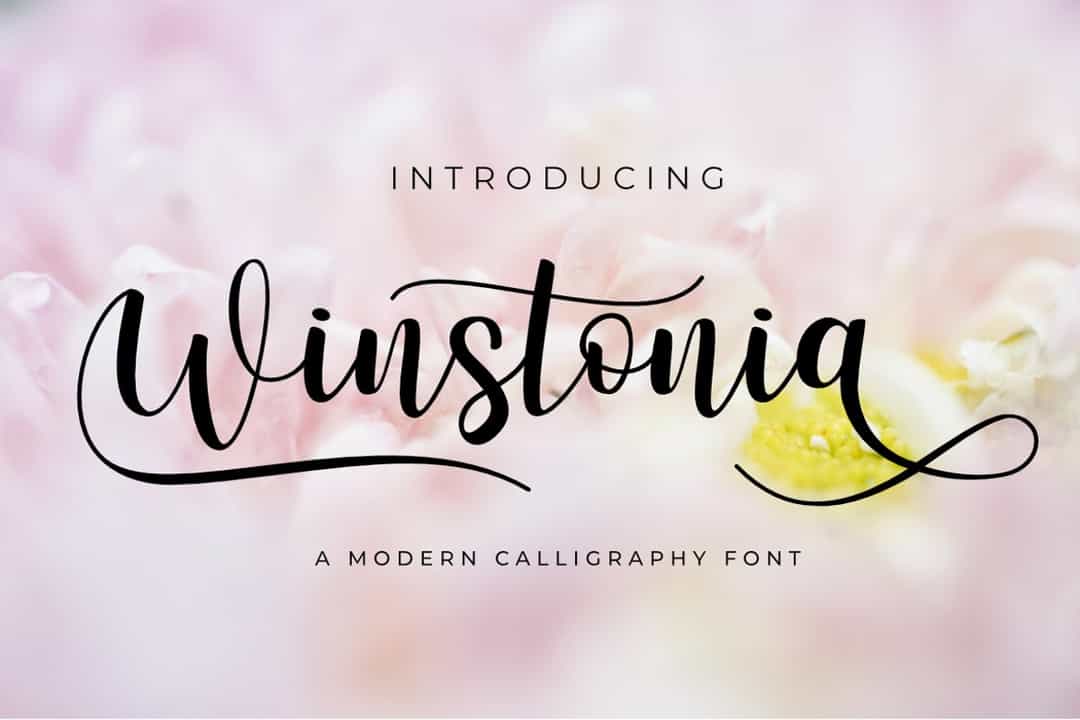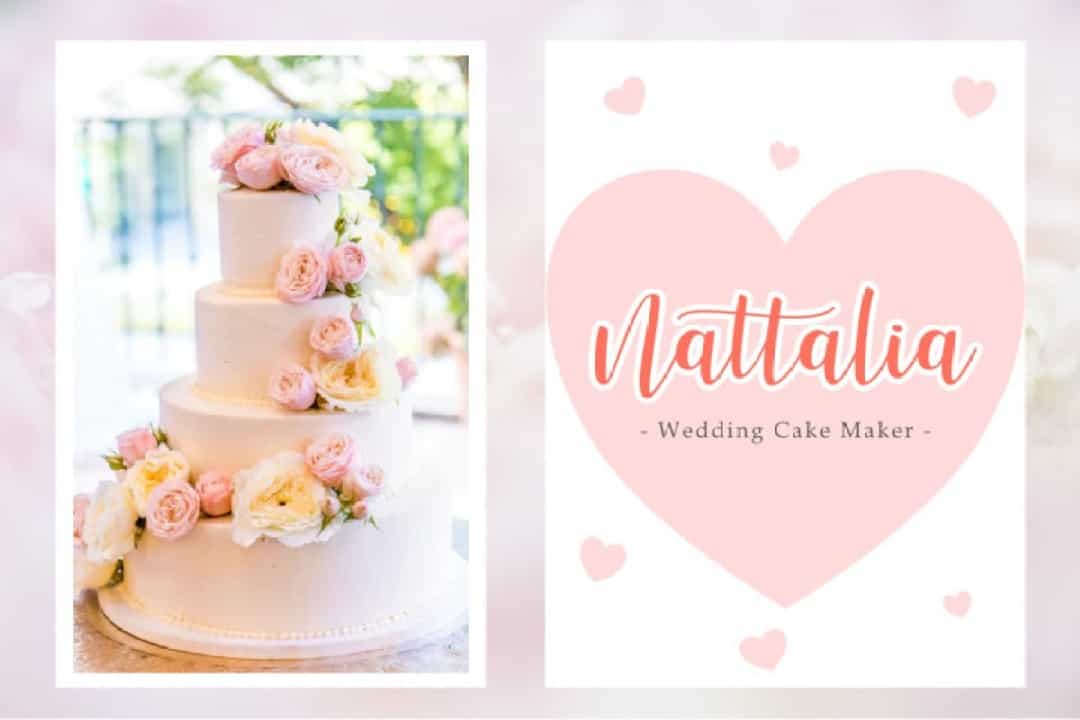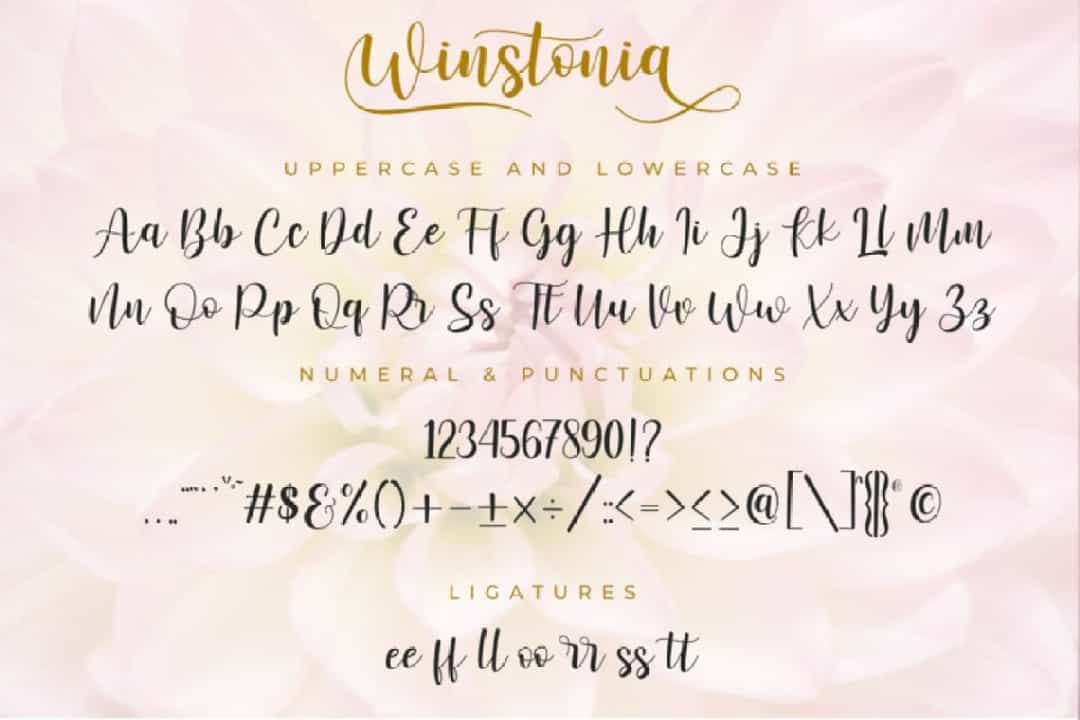
Winstonia is a contemporary font family of calligraphy with multiple uses that is created for professional graphic designers. This font has its low and uppercase characters, Swash alternative numerals, punctuation, and supports many languages great for elegant projects such as wedding invitations or stationery products.